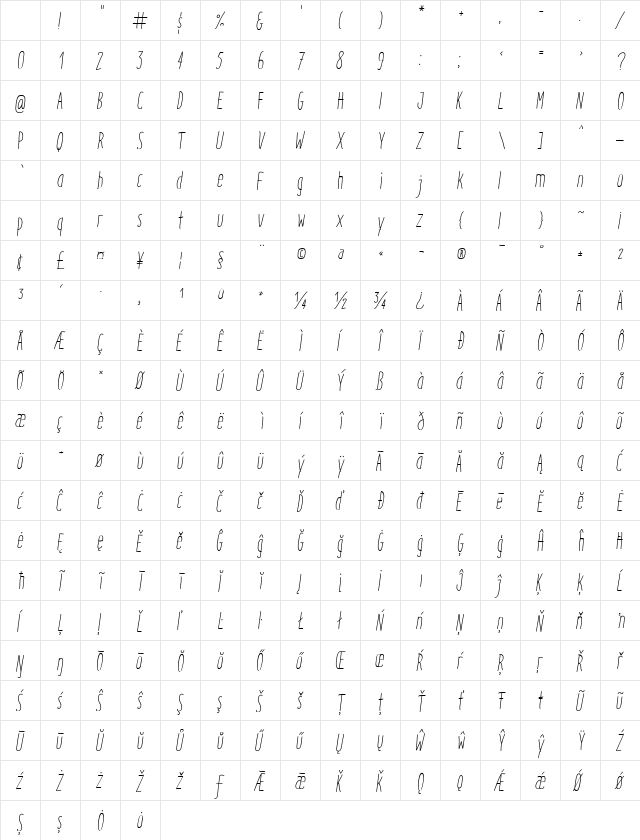
Italo is a composed and adaptable typeface that performs quietly and consistently across a wide range of design contexts. The slanted form adds forward momentum and visual energy. Its slender proportions lend an understated elegance to any composition.
Pro Tip: Use Italo for emphasis, pull quotes, and subheadings where its slanted energy can add rhythm to the layout.